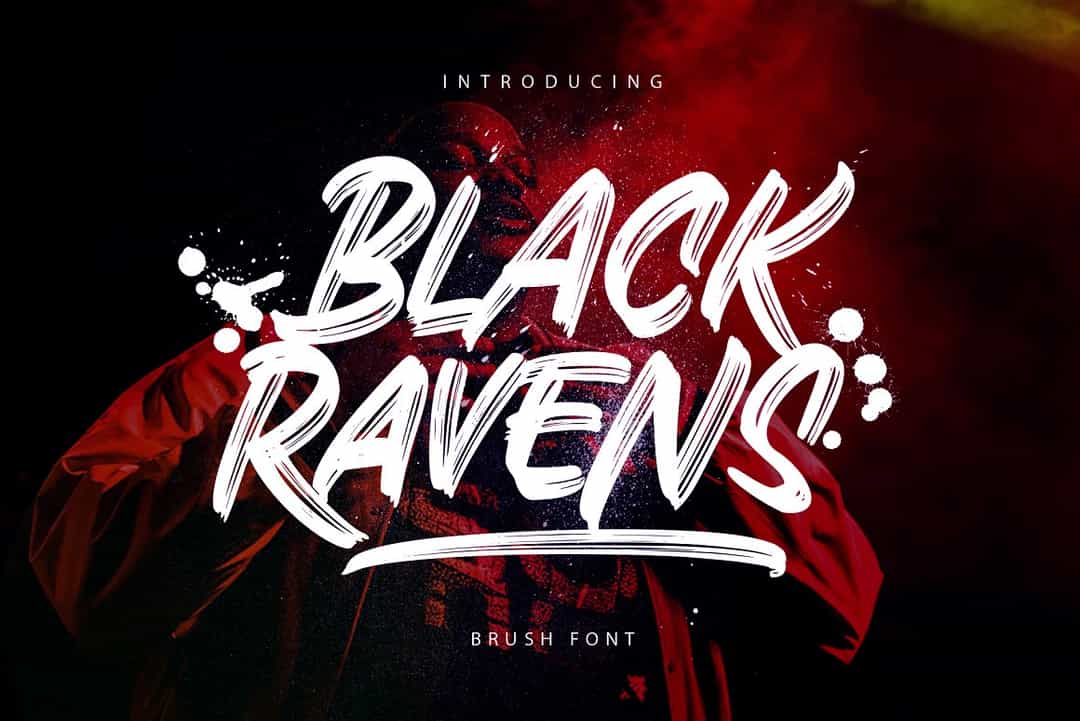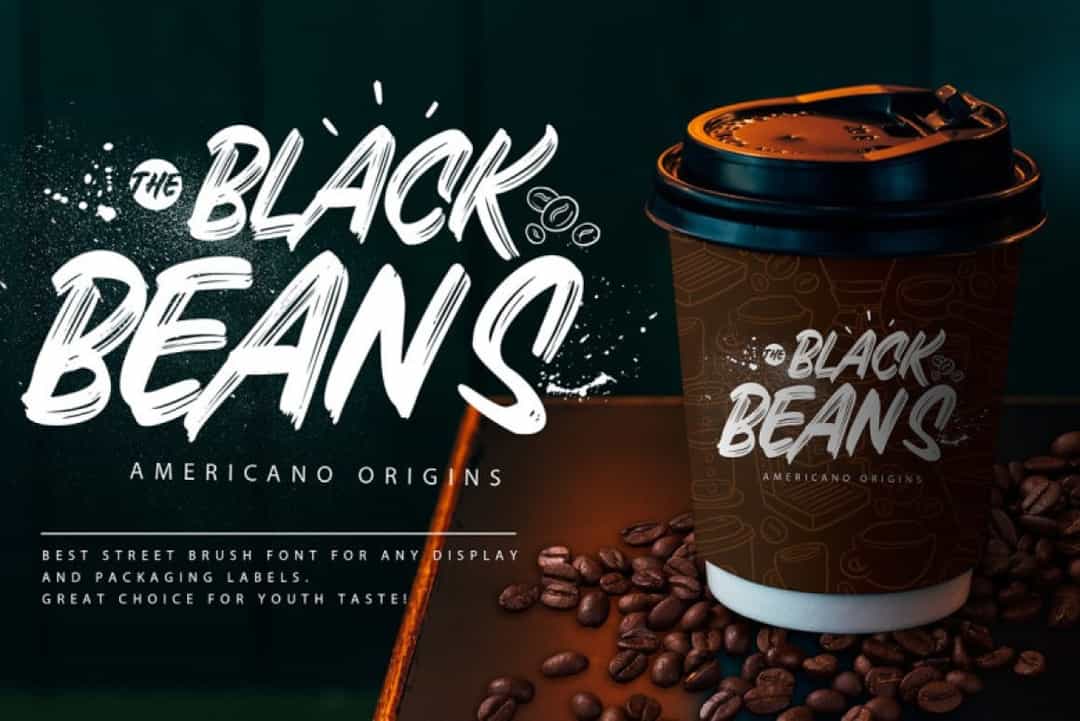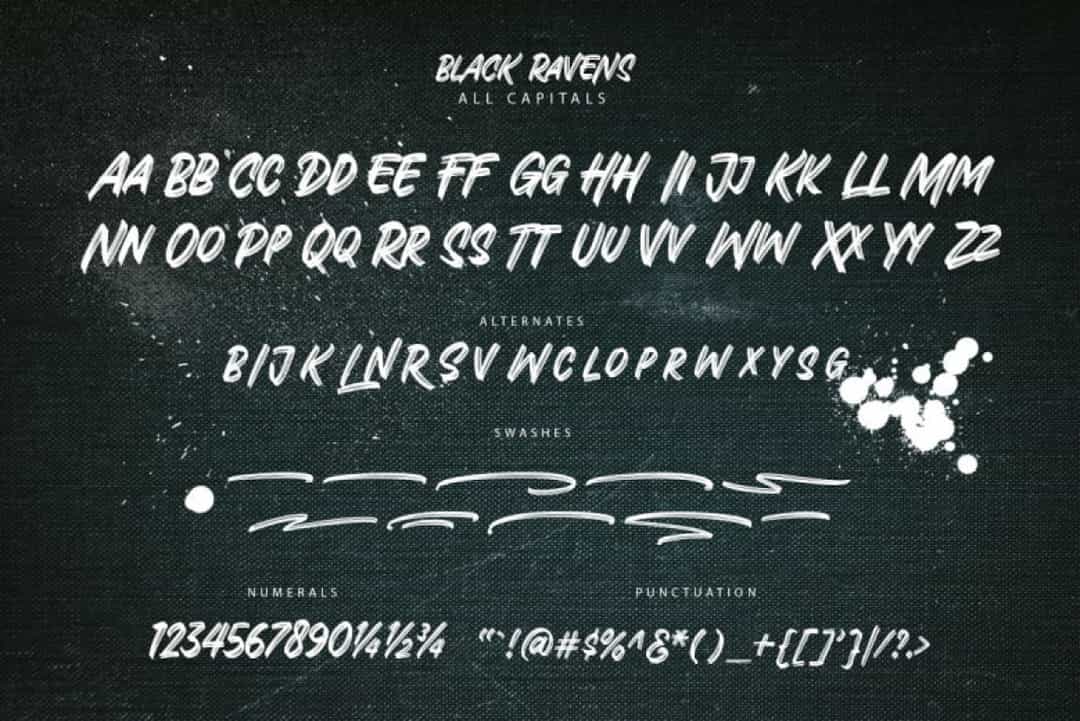
Black Ravens is an open-style dry-brush font using an organic single brush. Black Ravens is an urban street typeface with youthful themes, masculine styles, and sporty styles which show both smooth strokes and rough textures simultaneously.